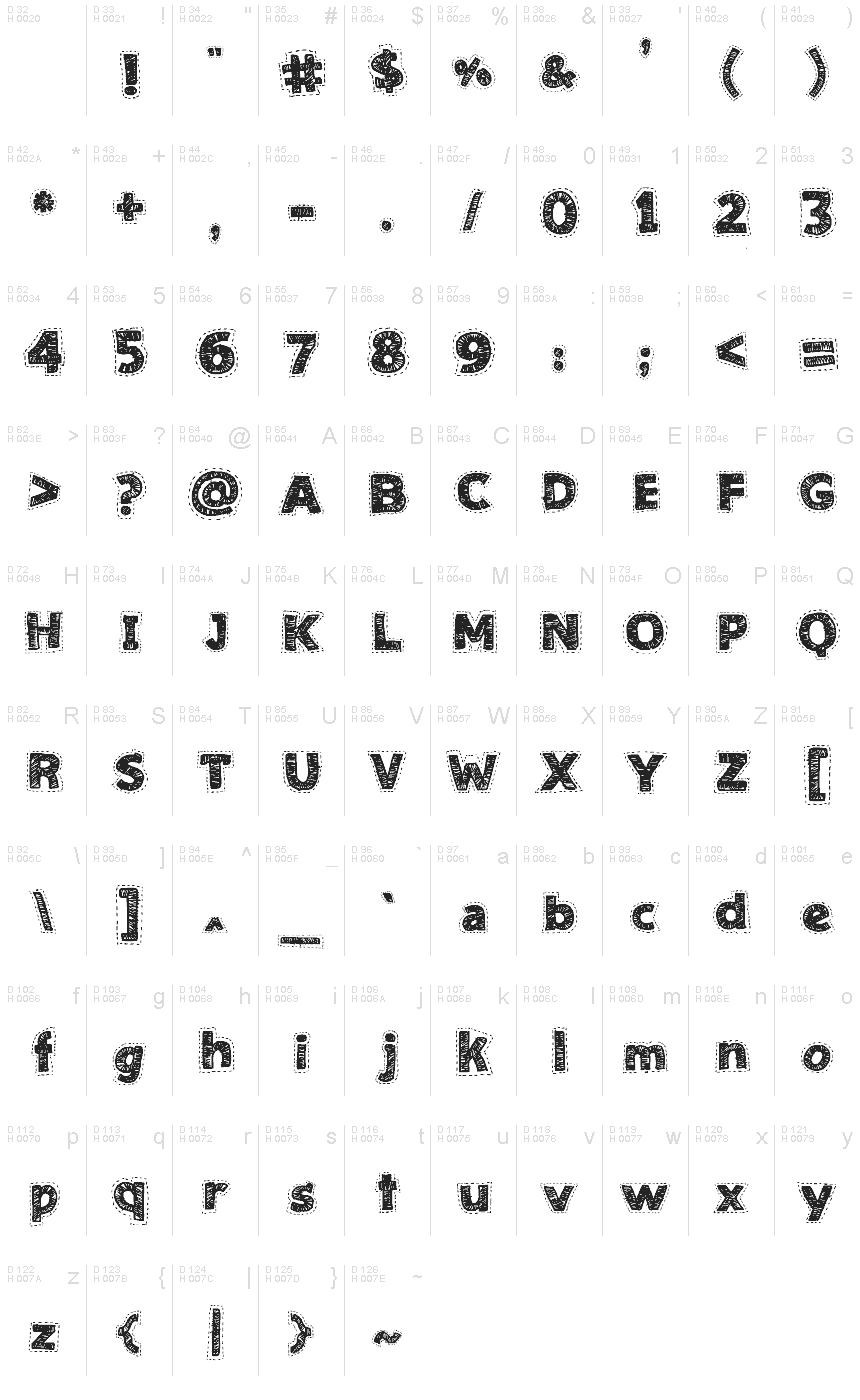
Needlework Good
Needlework Good font by Galdino Otten Fonts is an artistic display font with a textured appearance and vintage charm. Decorative, it features ornate, intricate patterns with each character having a unique one. The bold condensed alphabet gives an instant touch of elegance to any project where it is used.